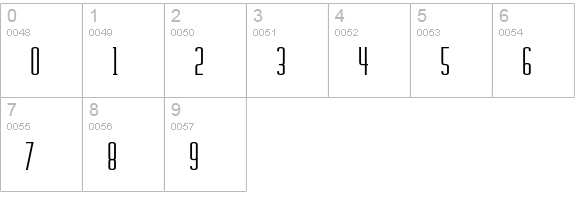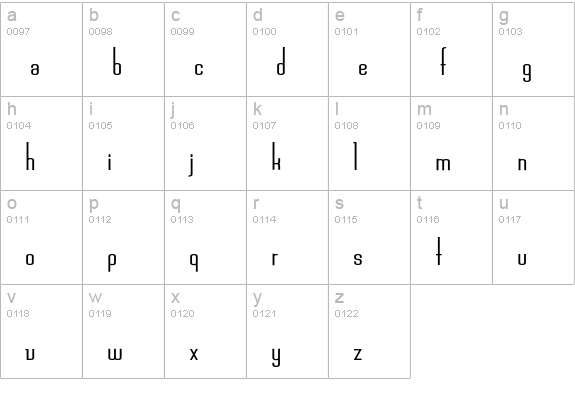
Chasline-Bold Font Details
Chasline-Bold is a strong, high-contrast variant in the Chasline typeface family \xE2\x80\x94 well suited to headlines, attention-grabbing titles, and strong calls-to-action.
Chasline-Bold is a striking and bold font that exudes confidence and power. Its strong, clean lines make it perfect for headlines, titles, and other eye-catching design projects. The font's bold weight commands attention and adds a modern touch to any creative endeavor. What sets Chasline-Bold apart is not only its impressive aesthetics but also its accessibility. This impressive font is available for free download at FontsMarket.com, making it easy for designers, creators, and enthusiasts to add a touch of bold elegance to their projects without any cost. Whether you're working on a professional presentation, a personal project, or anything in between, Chasline-Bold is a versatile and impactful font choice that is sure to make a statement. Download it today and let your creativity shine with this exceptional typeface.